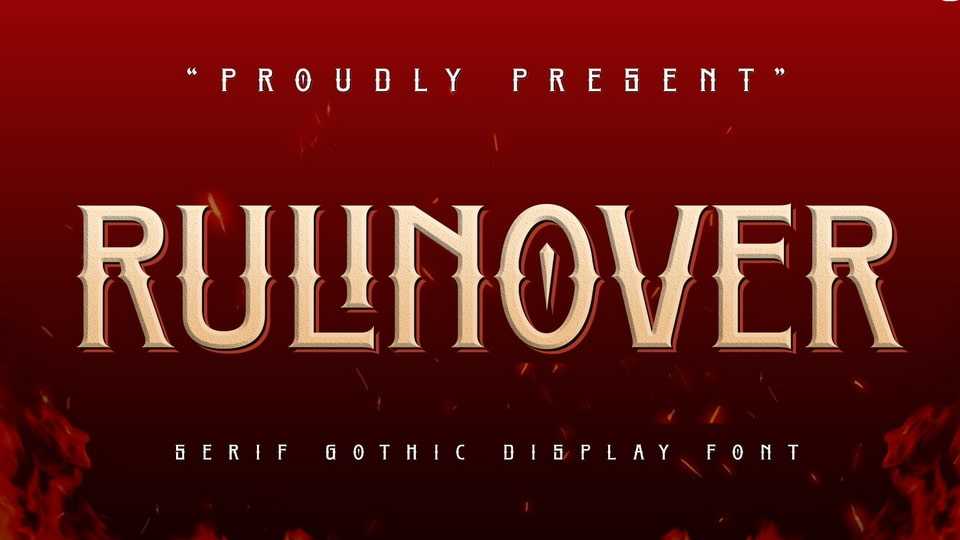
Download Rulinover font, a serif typeface inspired by adrenaline-pumping gothic horror movies and games. With that comes Rulinover as a supporting tool for typography based on genres of horror adventure, challenge and dare in a particular game or film.
Designer: Ridwan Fadilah